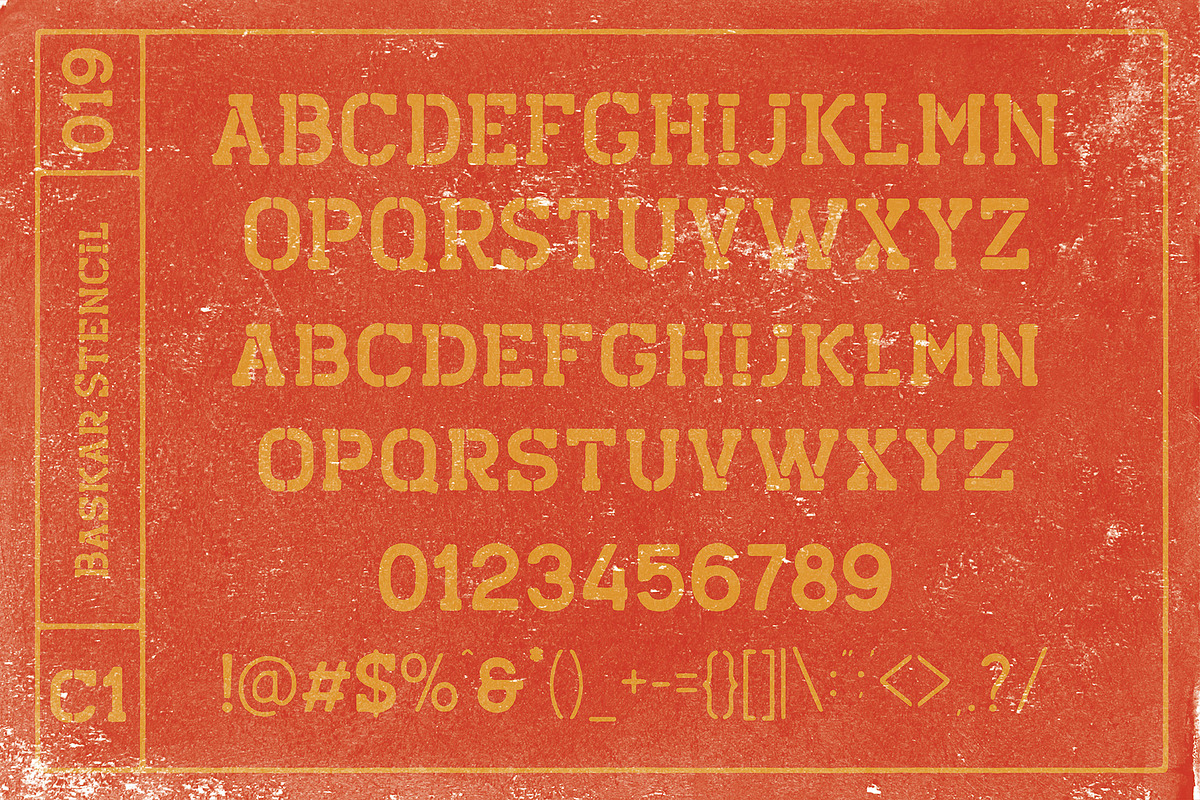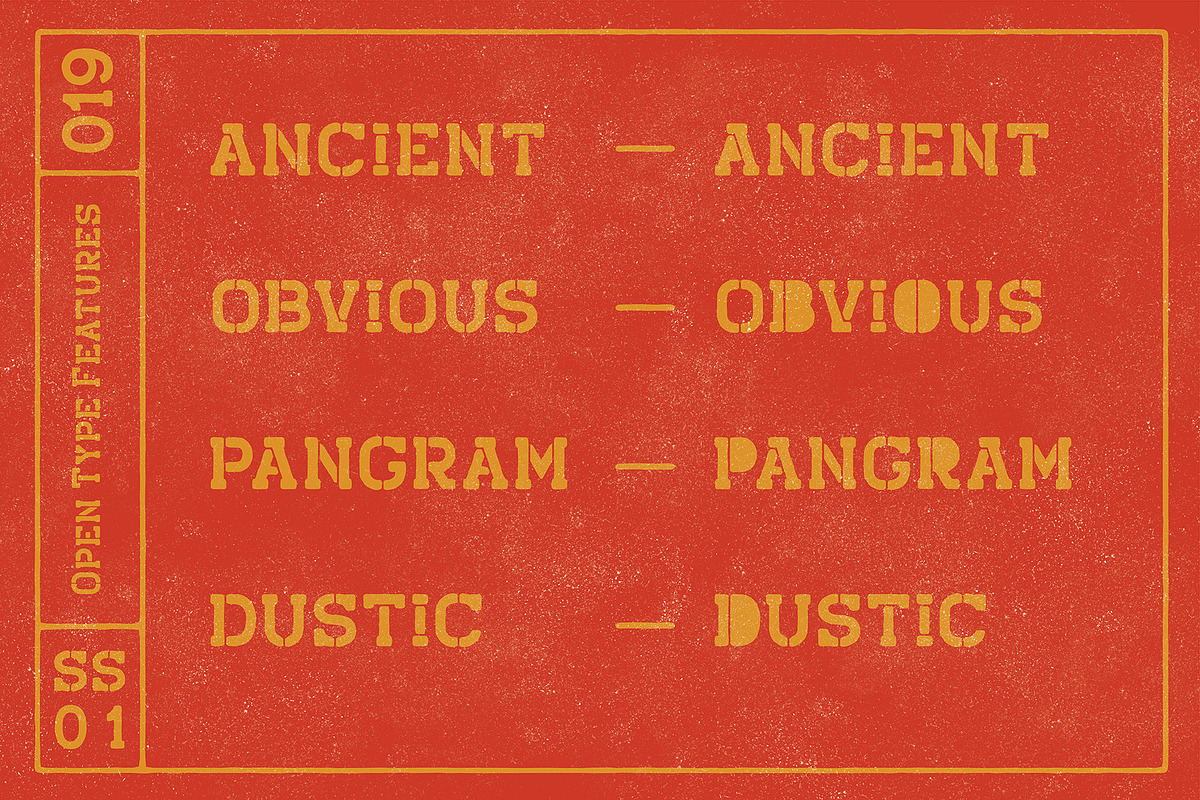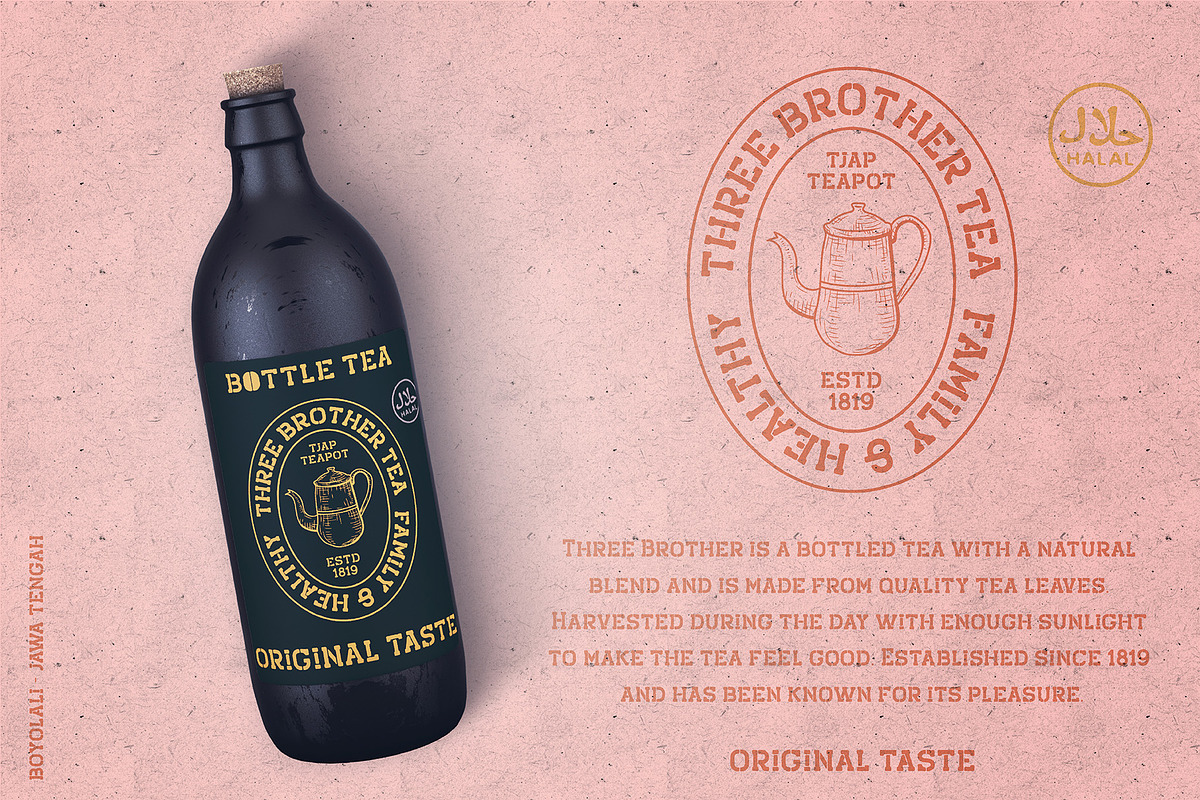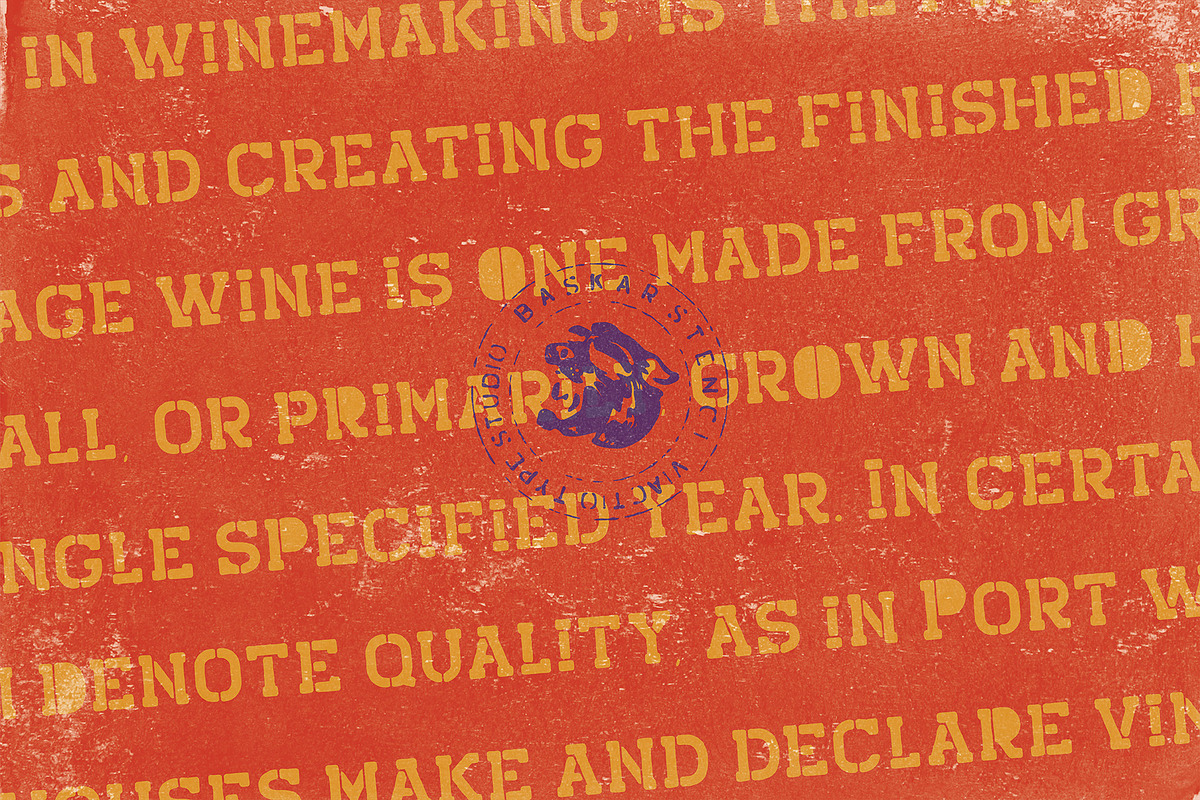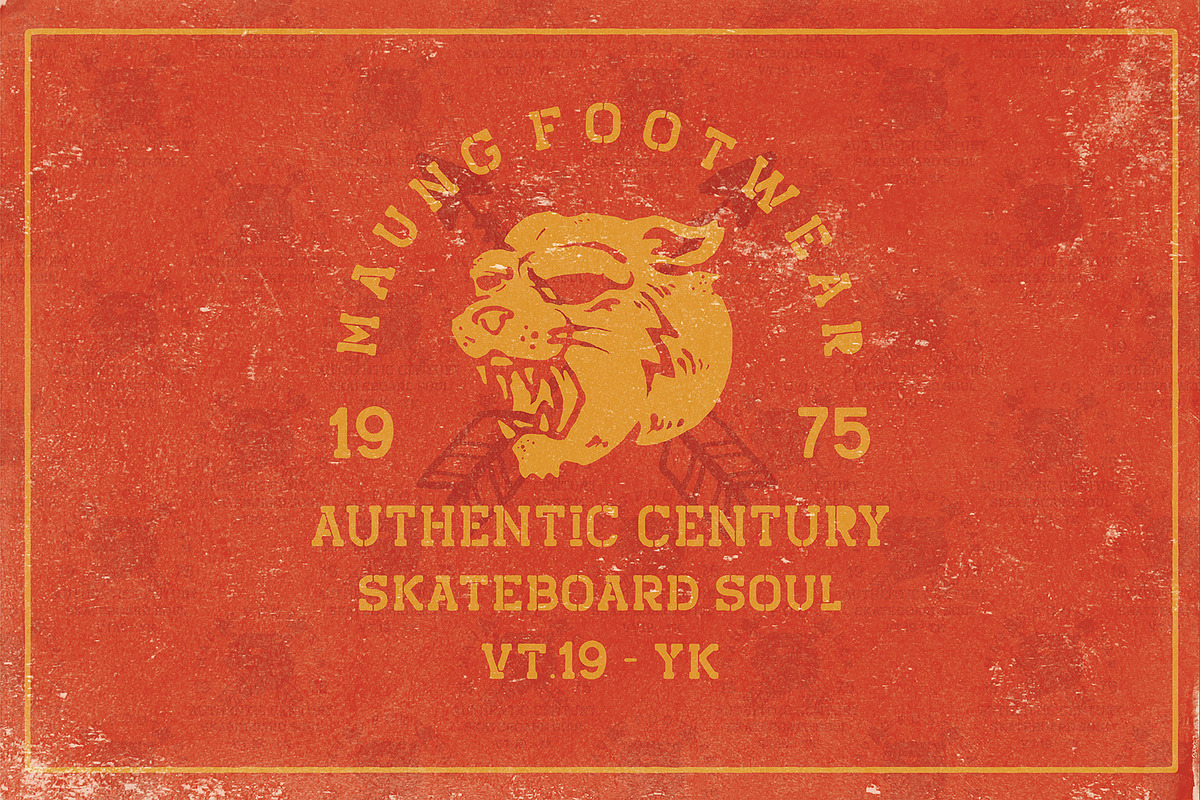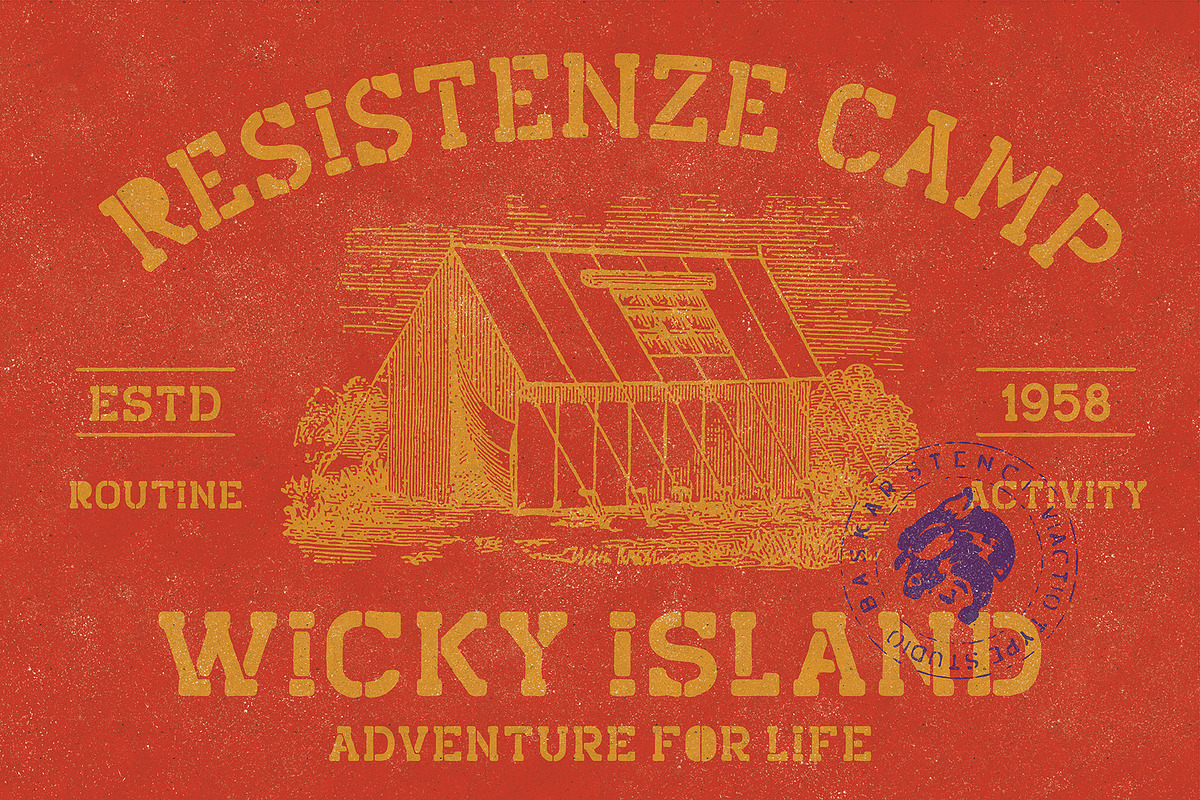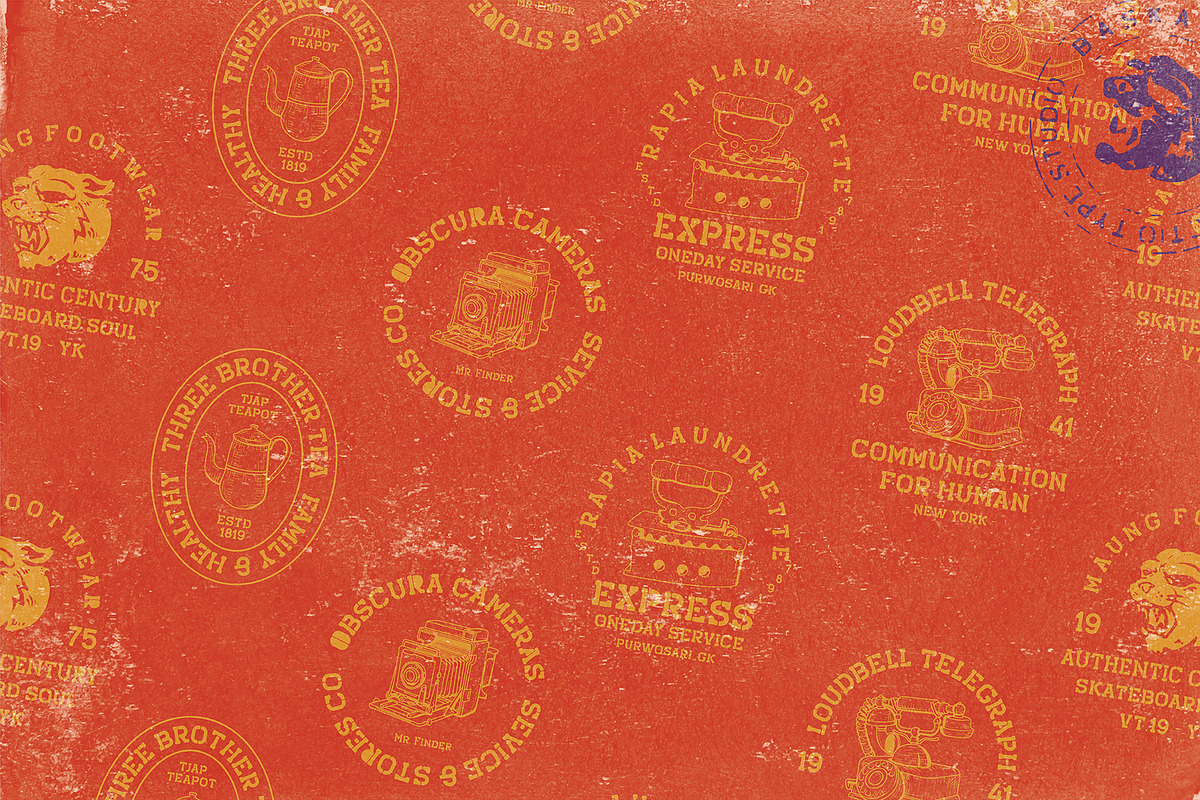
VT BASKAR - Vintage Font
Baskar Stc is a slab serif nice applied in various products. Complete with multilingual characters and stalistic alternates. It is suitable for quote, clothing design, vintage logo, label, poster, packaging design and other designs.
- Complete with multilingual characters and stalistic alternates.
VT BASKAR - Vintage Font by ViactionType fits naturally into Branding, posters, packaging, typography.